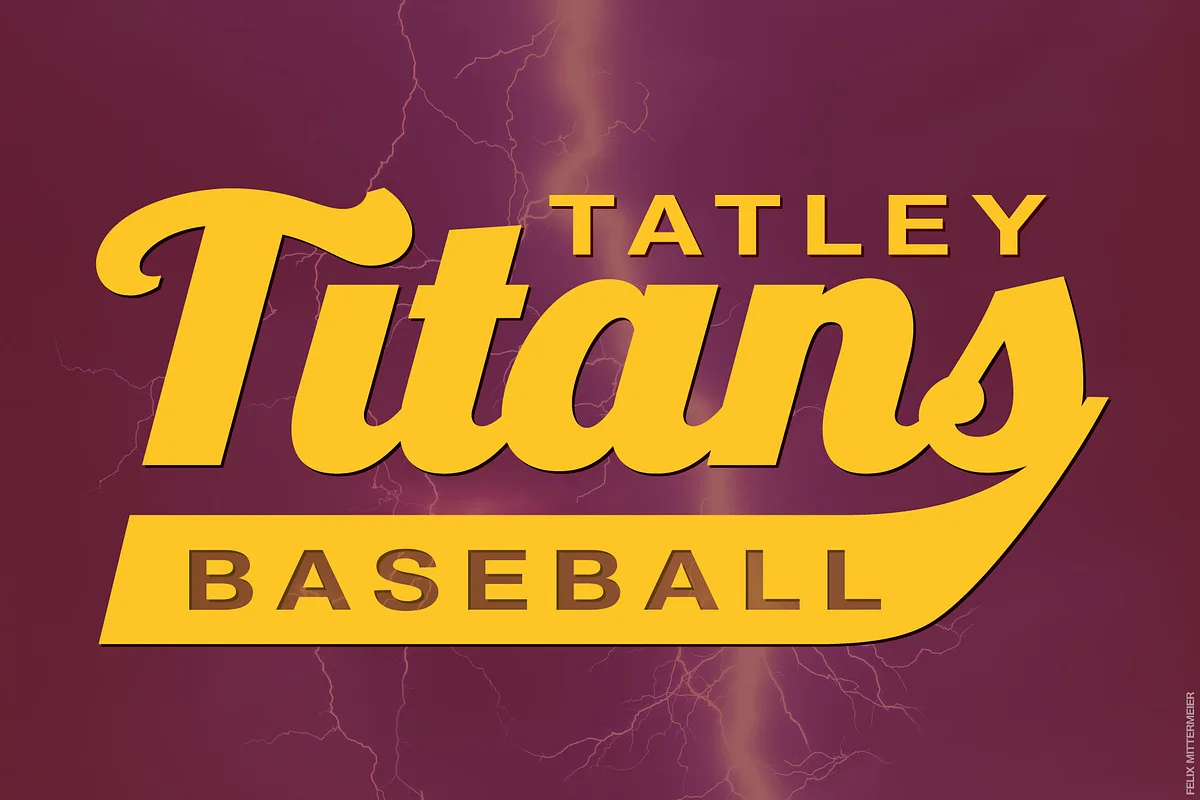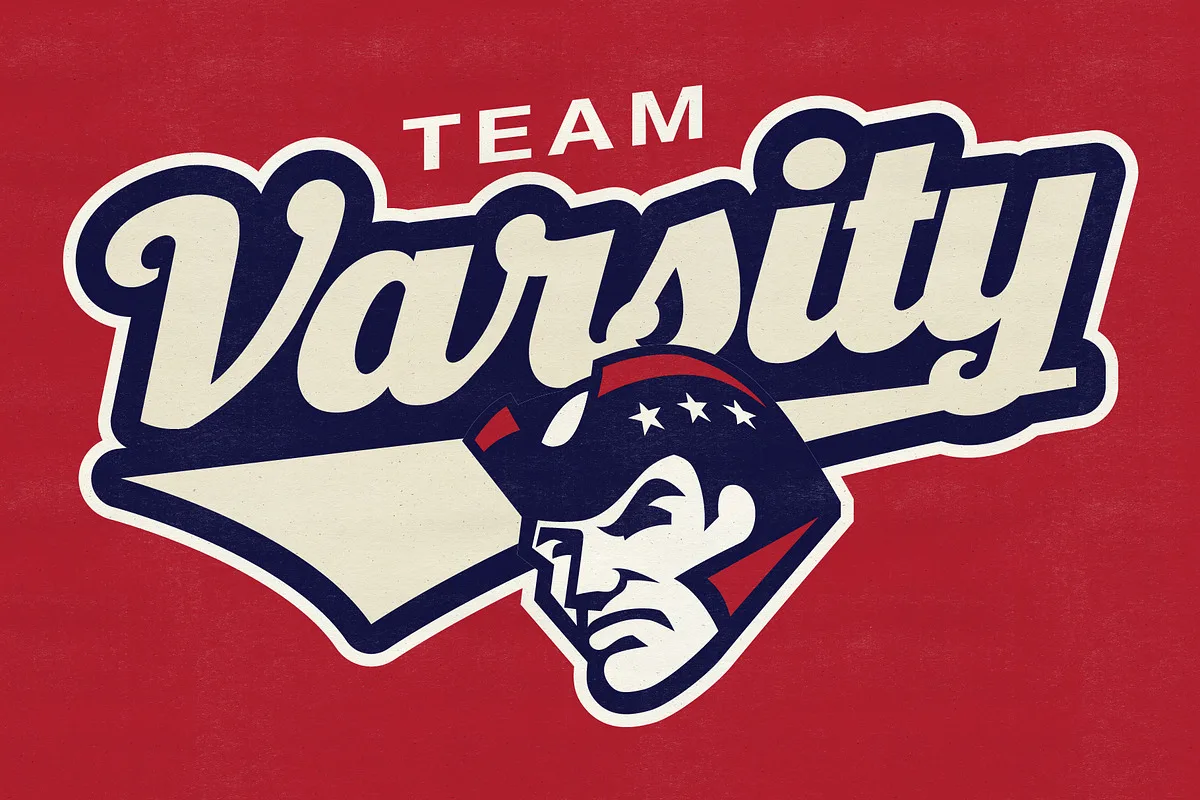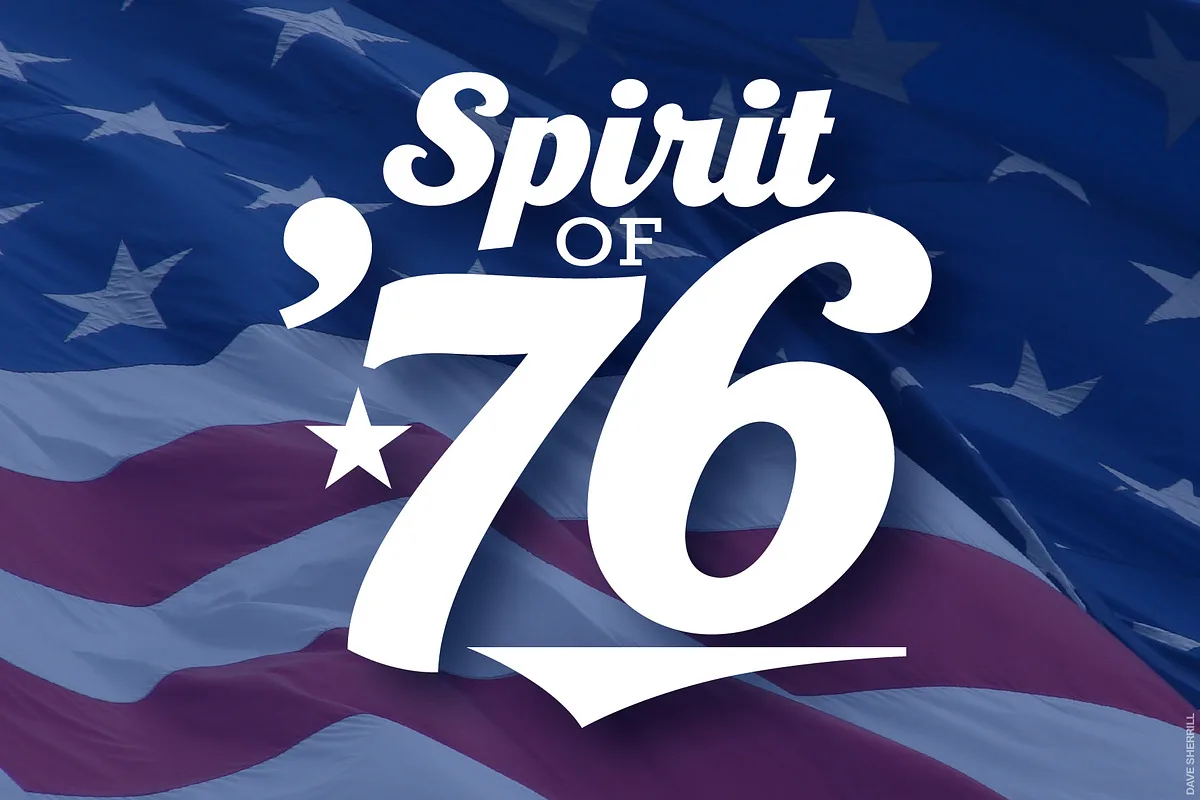
Bandbox is a bold athletic script typeface. Inspired by classic sport logo lock-ups, Bandbox delivers with its heavy, streaming cursive letterforms. Bandbox’s wide, gently-sloped script comes bundled with a collection of ligatures and 18 athletic swash banners, perfect for logotype, posters and t-shirt designs.
- Upper (A-Z) and lower case (a-z) characters
- Numbers (0-9)
- Standard punctuation and glyphs
- Alternates, Ligatures and Swashes
- Multilingual support